In typography, a high contrast font refers to a typeface that possesses a dramatic difference between its thickest and thinnest strokes. This shows the structural “stress” and elegance of the letterform, which is often associated with the Didone or Modern Serif classifications for timeless luxury.
Beyond mere legibility, high-contrast fonts are chosen for their ability to command attention and convey a sense of prestige. This is why legendary brands like Vogue, Harper’s Bazaar, and Dior consistently use this style to maintain their exclusive brand image.
Key Takeaways
- High contrast fonts feature a dramatic difference between thick and thin strokes, creating an instant “premium” look.
- These typefaces are most effective for logos, headlines, and editorial titles where a sense of prestige is required.
25 High Contrast Font Choices for Premium Designs
High-contrast serif font or typography is instinctively perceived as more ‘expensive’ and ‘elegant’. This is why the majority of legacy luxury brands favor sharp serifs over simpler forms to maintain an aura of exclusivity. So, if you want to achieve that same level of them, explore our recommendations below!
1. Agraham
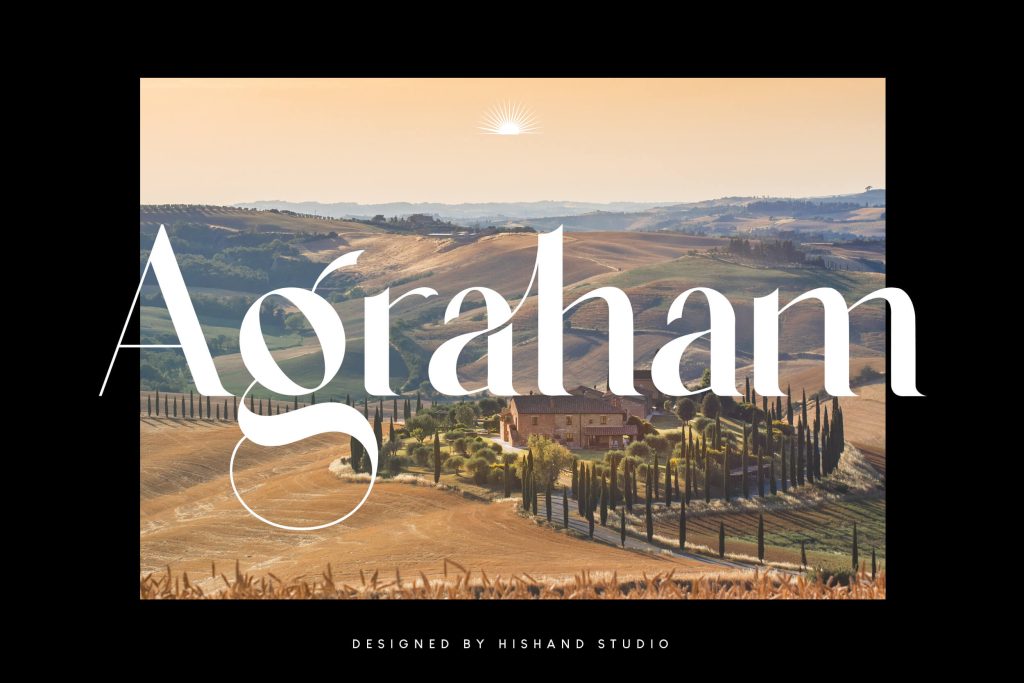
Sharp contrast and slim serifs define this typeface’s luxurious appeal. Premium branding projects benefit from its instant high-end feel.
2. Qe Laurenty
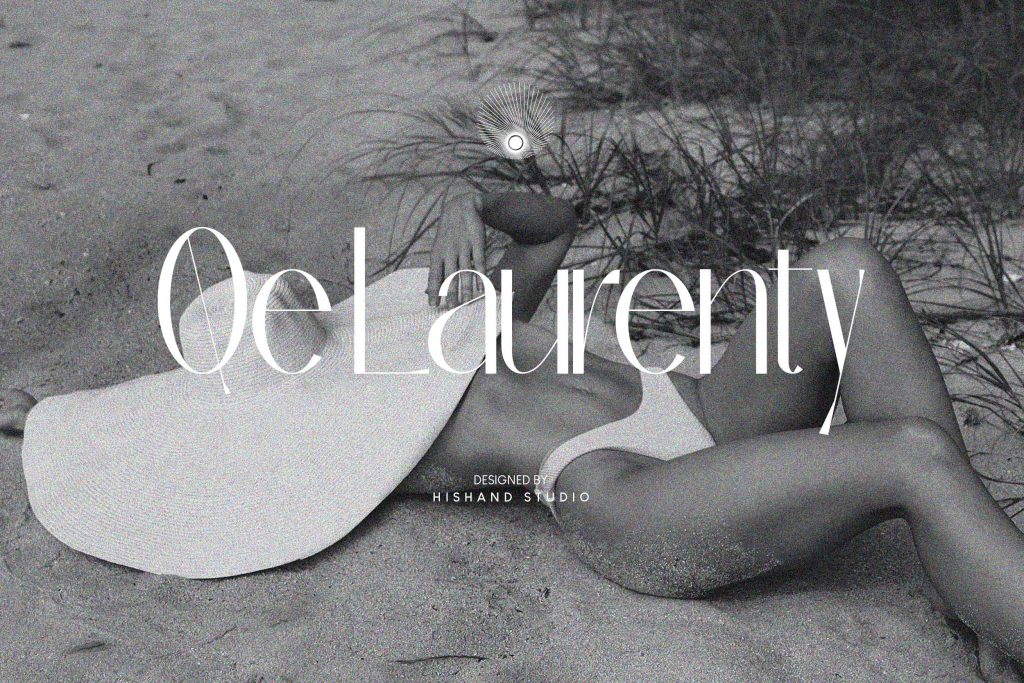
Clean, modern aesthetics emerge from this font’s balanced stroke weights. It is a top-tier choice for minimalist websites and digital layouts.
3. Qrada
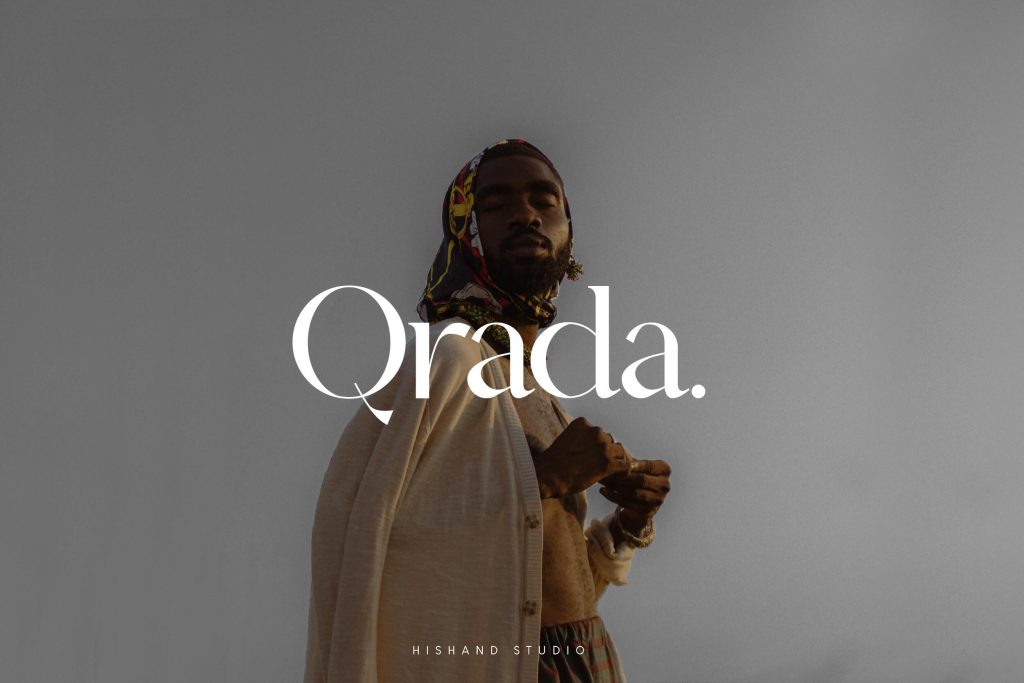
This font blends modern details with dramatic transitions to create a sophisticated tone. Editorial designs gain a refined yet approachable look here.
4. Saveya
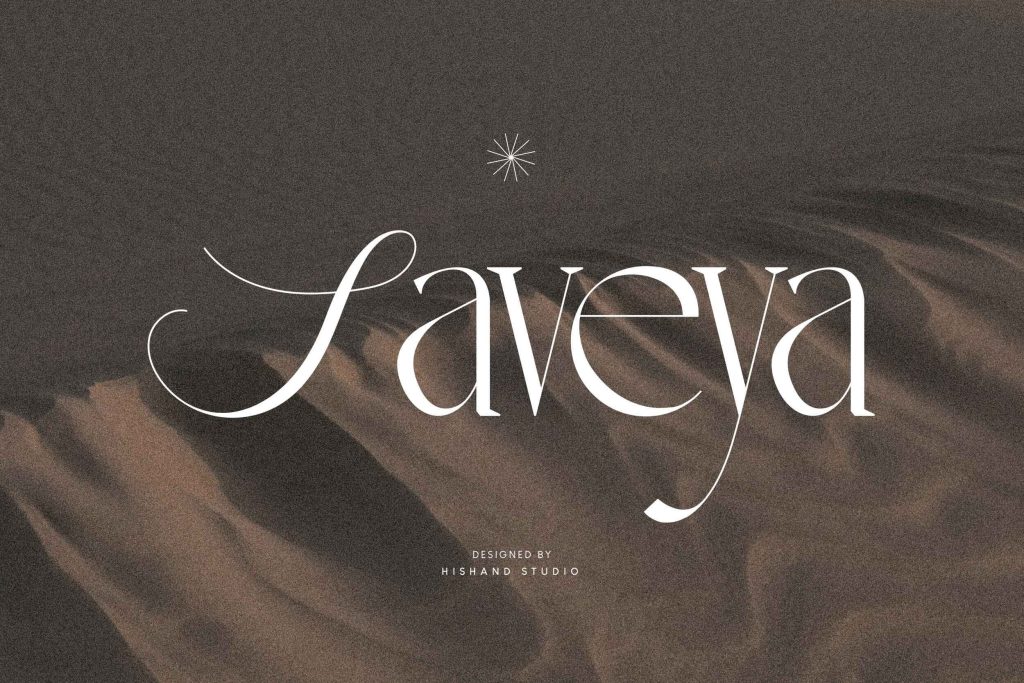
Expressive character radiates through this unique script-serif hybrid. Its fluid contrast adds a personal, artistic touch to logos and invitations.
5. Qarkine
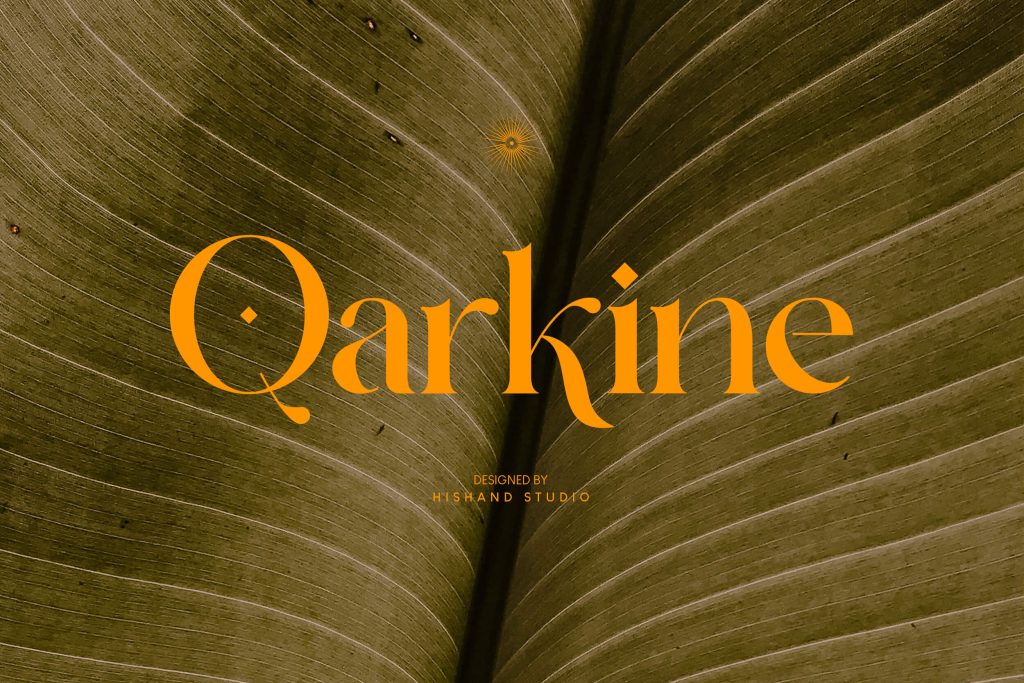
Sophistication is projected through every high-contrast stroke. As a centerpiece for luxury identities, it commands absolute professional respect.
6. La Qatrie
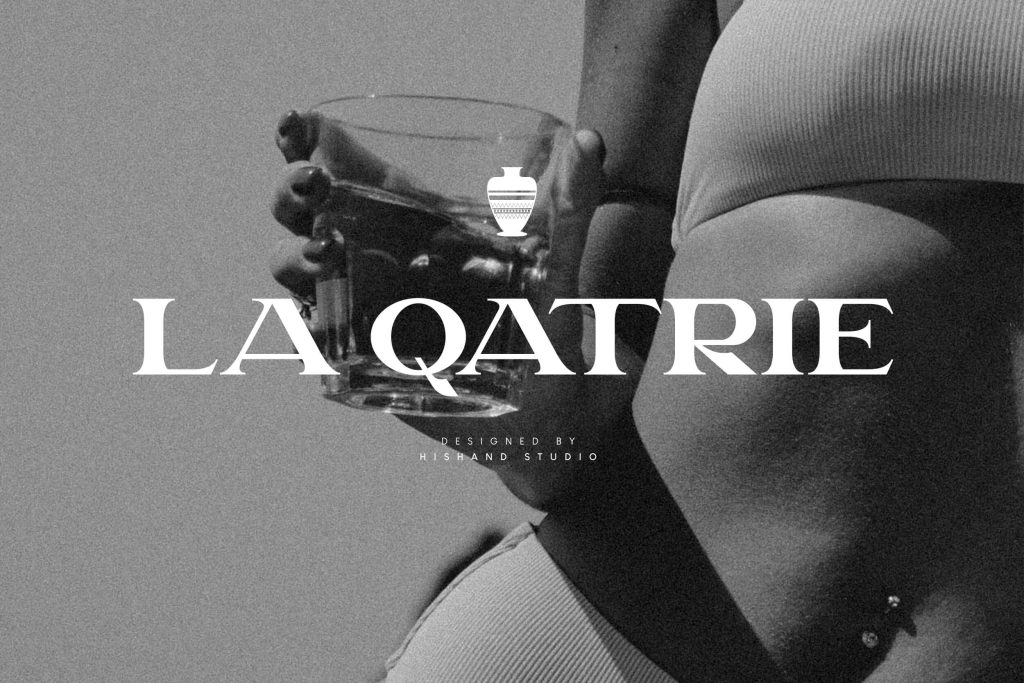
Creative headlines and posters find their voice in this bold display font. Its heavy weight differences ensure your message never goes unnoticed.
7. Oleragie
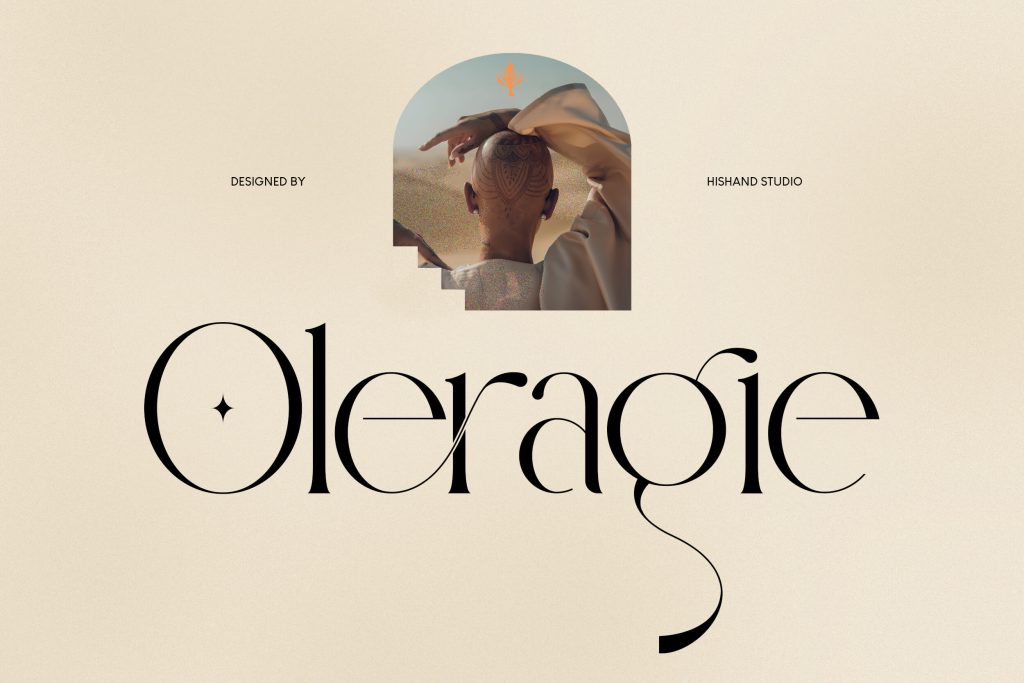
A timeless, grand atmosphere flows from these refined curves and soft contrast. High-end print layouts achieve a classic, prestigious touch with this high contrast font.
8. Dolce Amyara
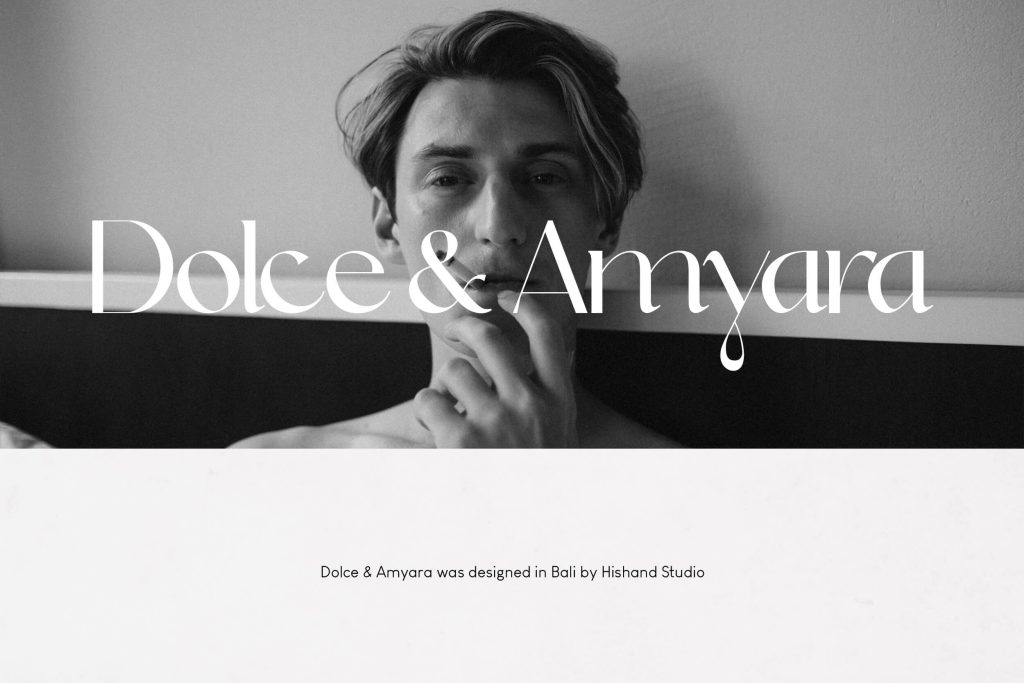
Chic, feminine visuals are enhanced by these stylish forms and clear contrast. Its grace is particularly effective in the beauty and fashion industries.
9. El Molaco
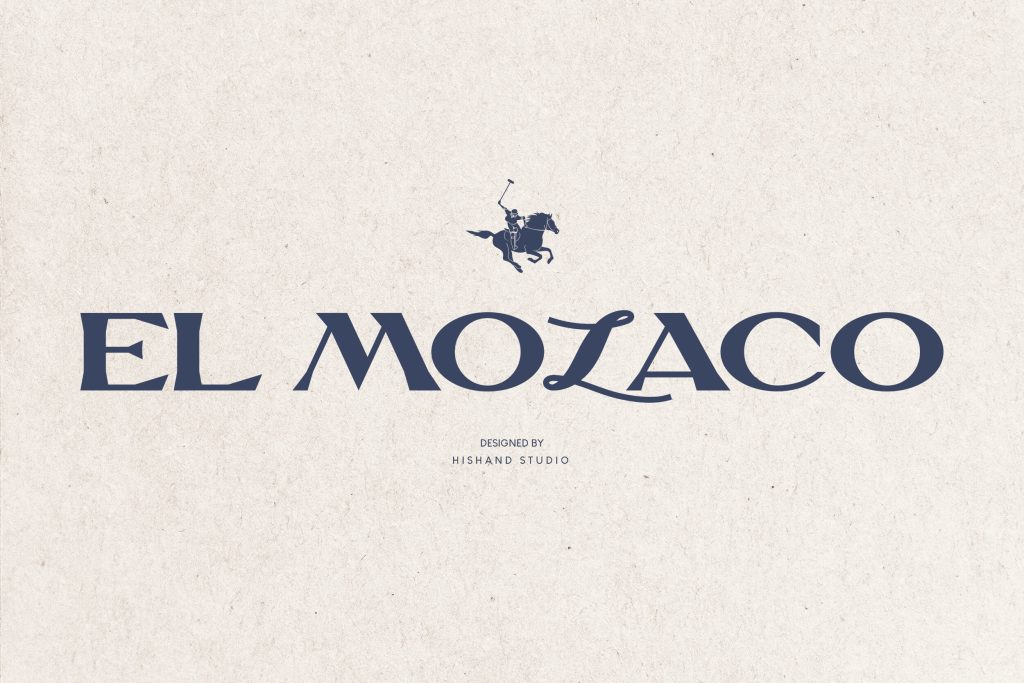
High-impact visual punches are guaranteed with these bold shapes and heavy contrast. It provides maximum visibility for displays that need to grab attention.
10. Monteilga
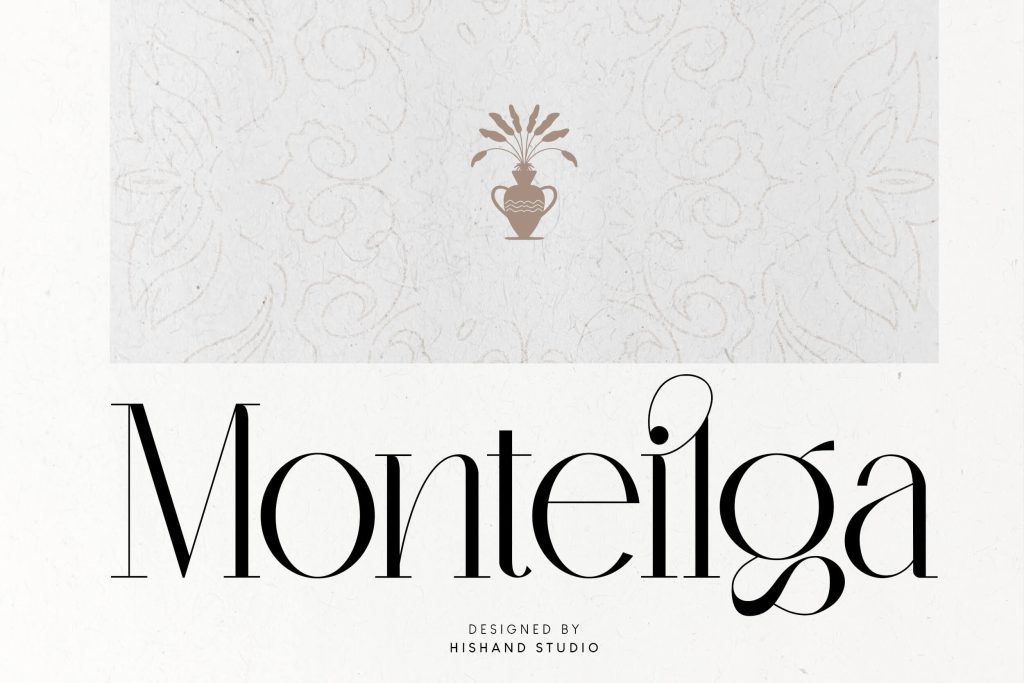
Professional prestige meets fashion editorial tones in this classic serif structure. Magazine covers and high-end branding gain a refined edge through its use.
11. Qanoar
Classy, clean forms define the subtle high contrast of this modern typeface. This high contrast font works effectively for corporate visuals and professional business layouts.
12. La Gagliane
A timeless impression is built through the mix of classic and modern styles. Sharp weight transitions highlight a refined aesthetic perfect for logos.
13. Lamarkie
Polished, premium vibes are the hallmark of these elegant strokes. It elevates upscale branding projects with its sophisticated and clear letterforms.
14. Alokary
Clarity in modern digital design is achieved through this minimal sans-serif style. Its subtle contrast supports user-friendly and clean interfaces perfectly.
15. Leky Calgria
A graceful, poetic tone stems from these elegant details and high contrast. High-end event invitations gain an extra layer of class from this font.
16. Barilod
Layouts stay airy and clean thanks to this modern sans-serif’s versatile look. Its subtle contrast offers a professional finish for diverse commercial works.
17. Marde Sauve
Immediate visual interest is generated by bold display forms and hairline details. Striking creative campaigns find their perfect match in its strong contrast.
18. Buljirya
A confident, stylish energy radiates from this modern serif’s sharp contrast. Contemporary brands use this font contrast to build a bold and trendy appearance.
19. Cerkiymo
Creative typography projects find a refined finish in this font’s smooth contrast. The artistic flow of its elegant typeface enhances any visual canvas.
20. Raligur
- Are they suitable for long paragraphs?
No. In small body text, the hairline strokes often “disappear,” which reduces readability on most screens.
- How should I pair these fonts?
Pair them with simple, medium-weight sans-serifs to act as the “star” and support details.
- Why are they associated with fashion?
Historically, their sharp and delicate look mirrored the precision of high-end tailoring. This remains the industry standard for elegance and class.